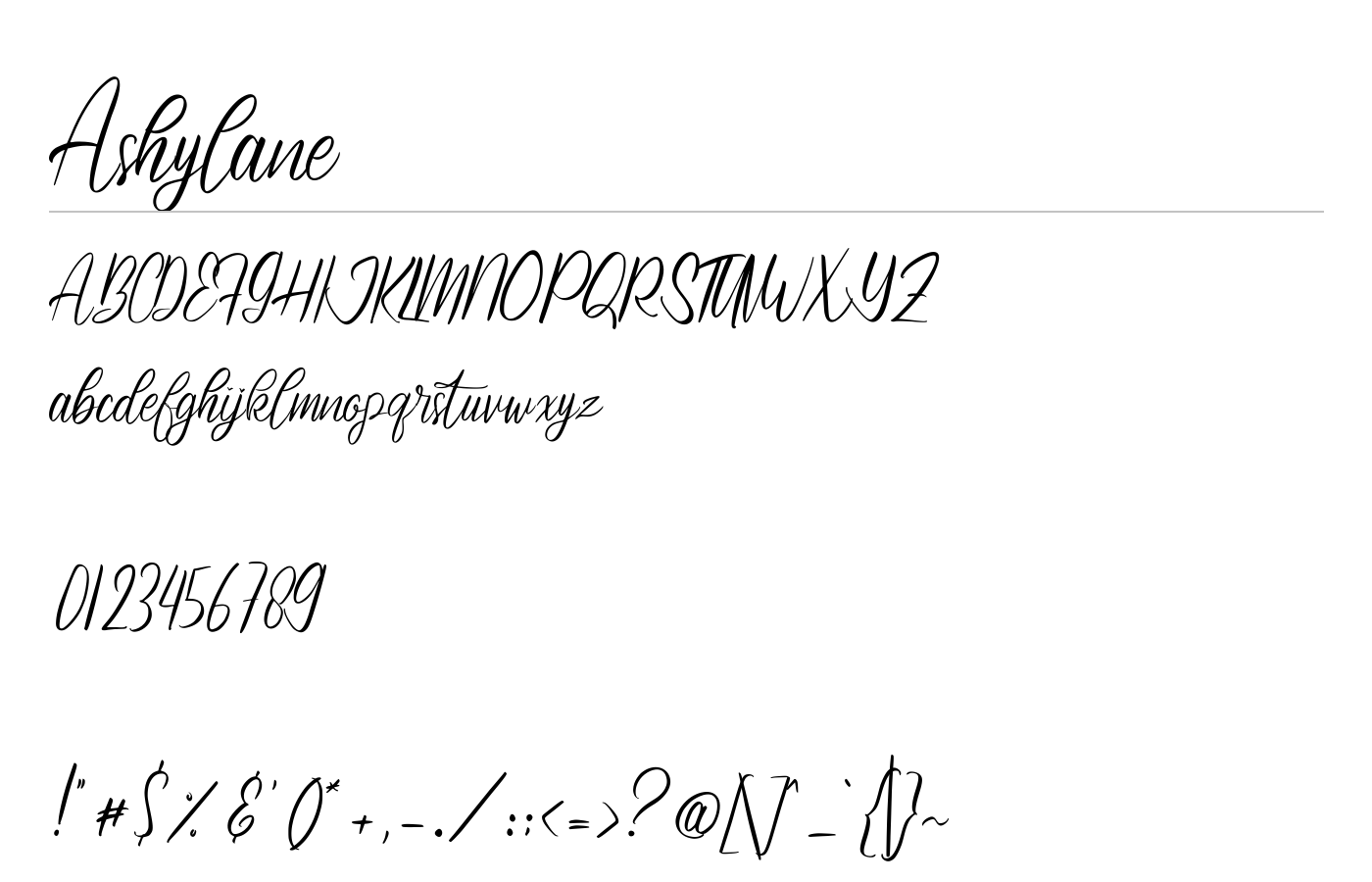
Ashylane is an elegant, narrow script font with a delicate, handwritten feel that combines smooth, flowing strokes and a graceful slant. Its thin weight and elongated letterforms create a sophisticated and refined look, perfect for adding a personal, stylish touch to invitations, branding, and fashion-related designs. This font works best in display uses where its intricate details and airy spacing can shine.
Ashylane Font
About Ashylane Font